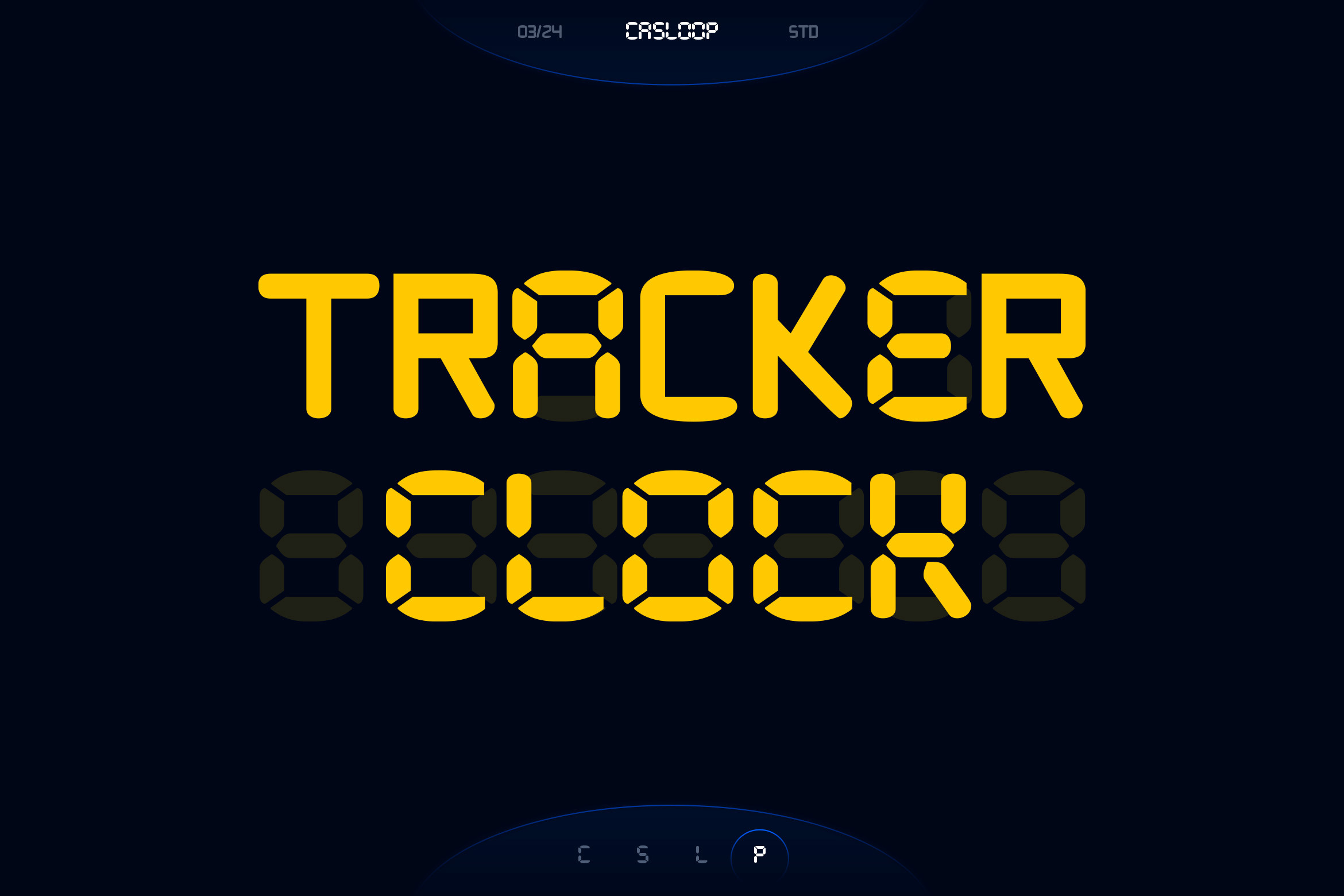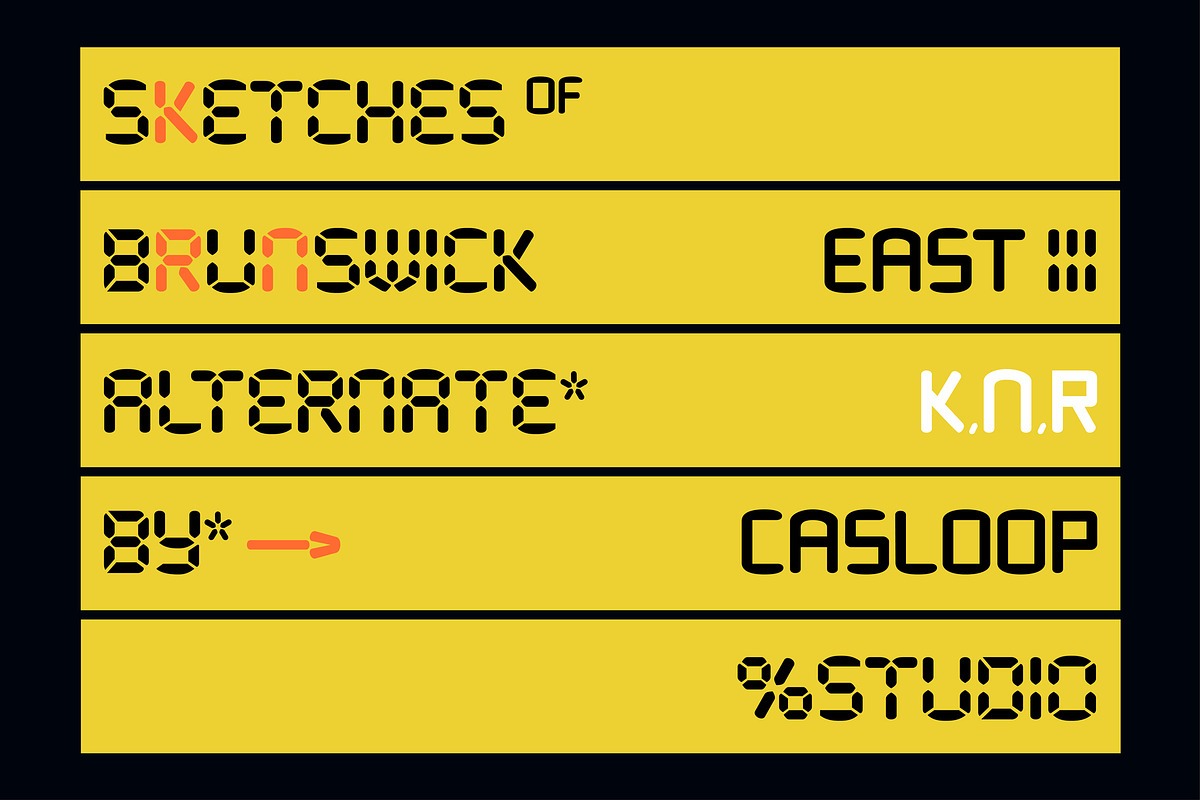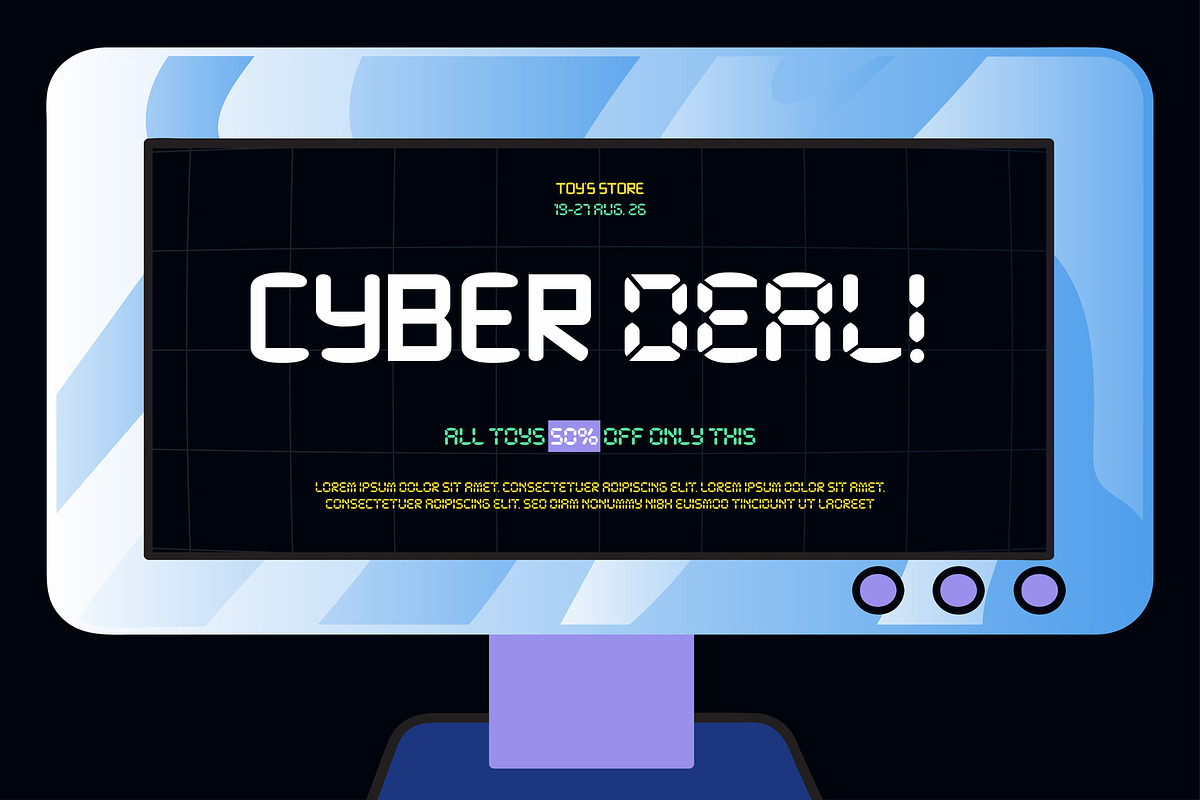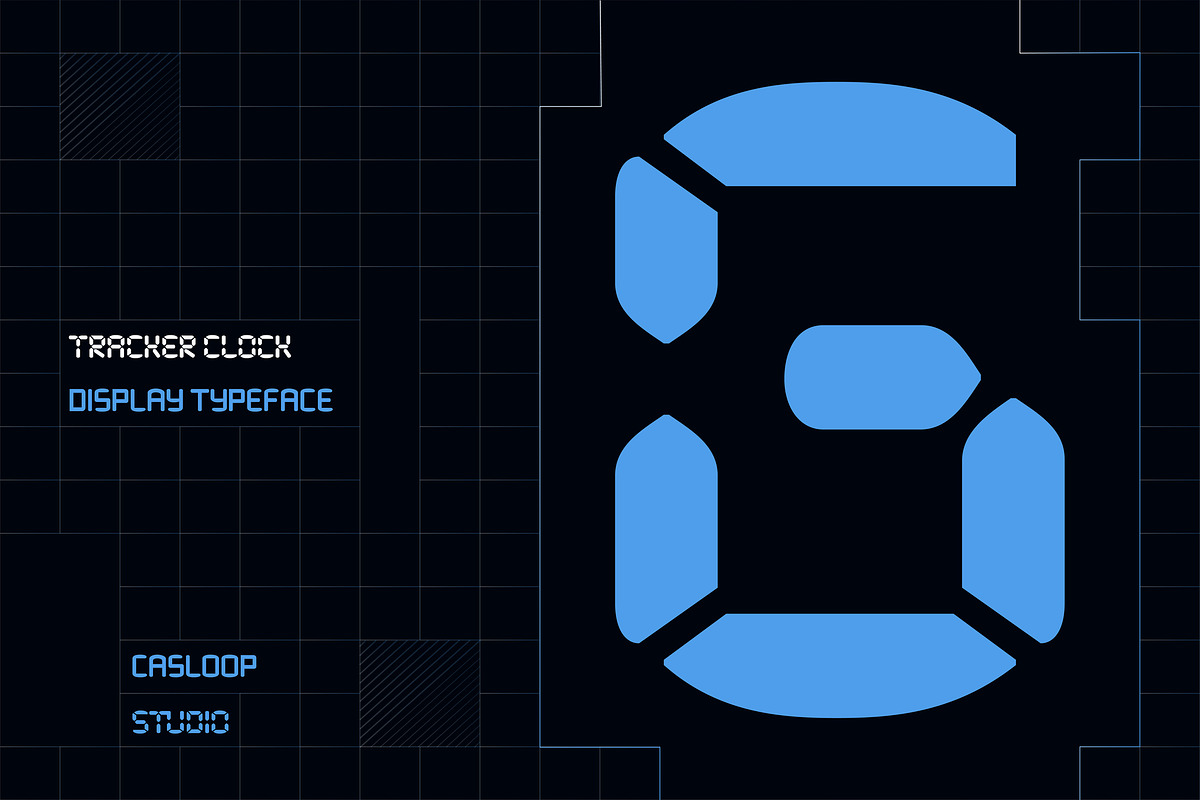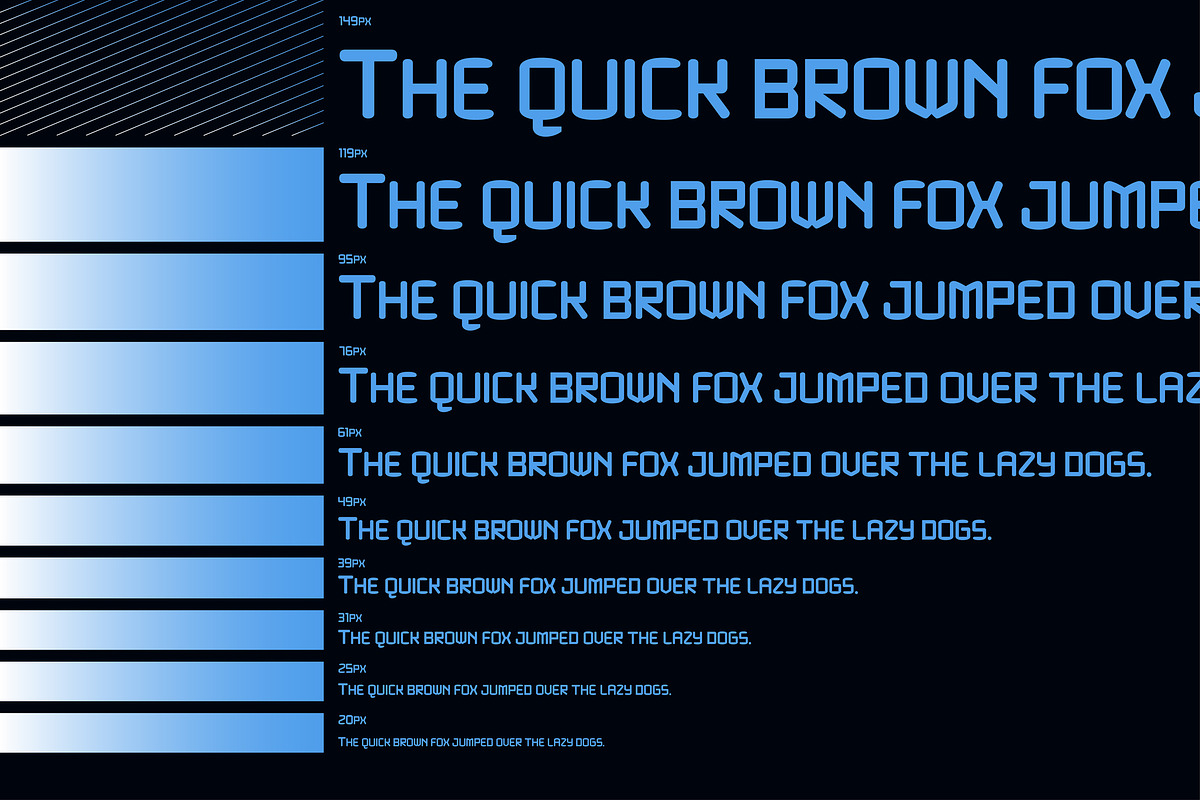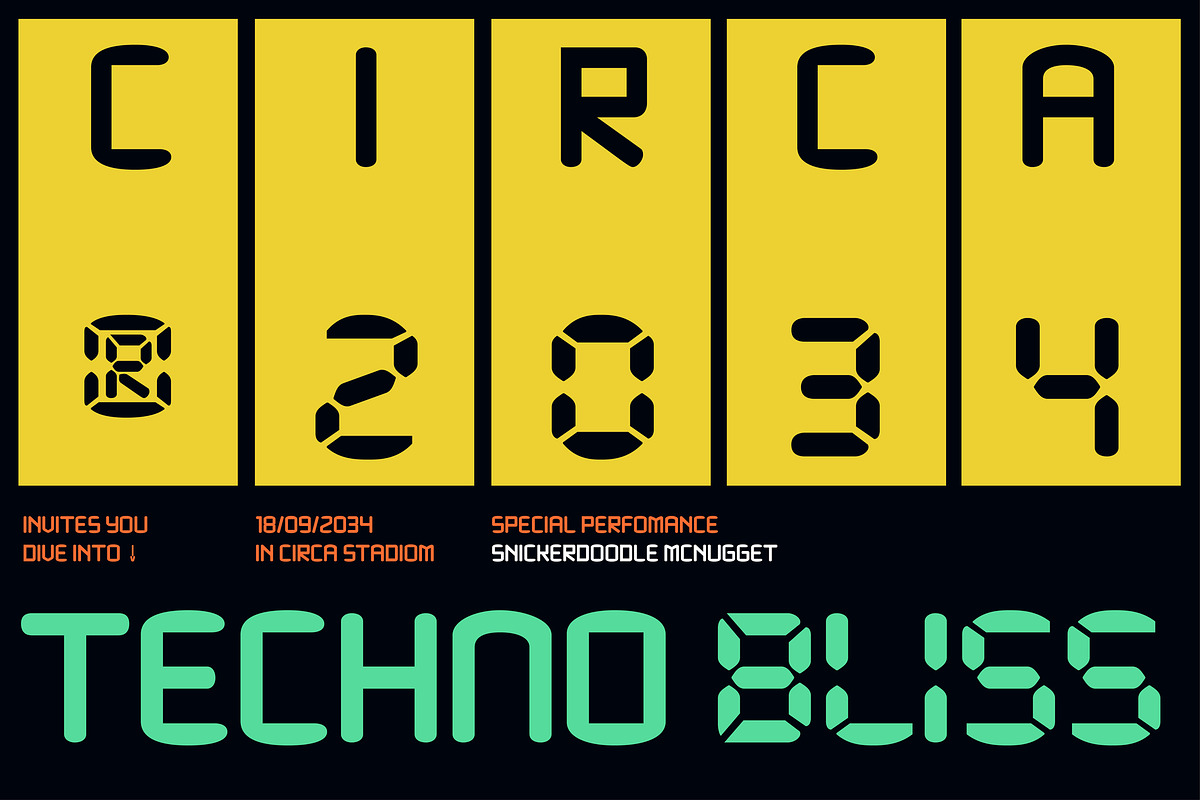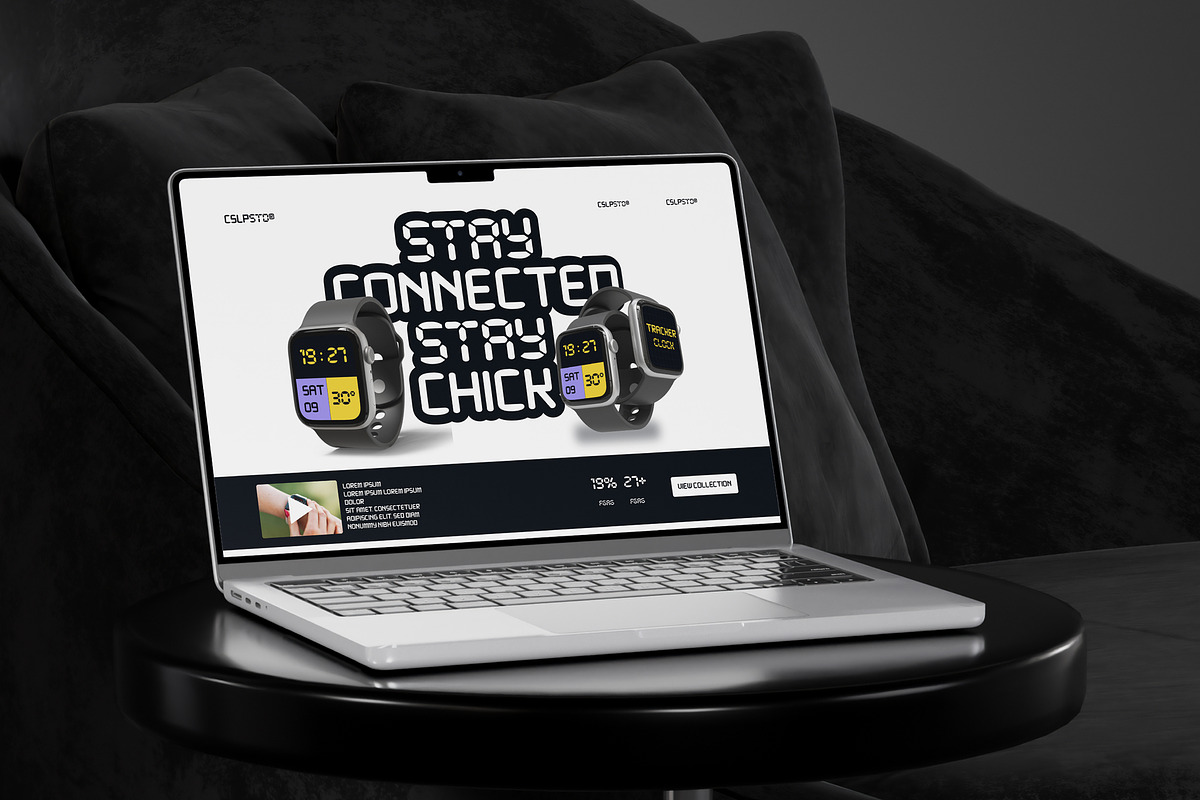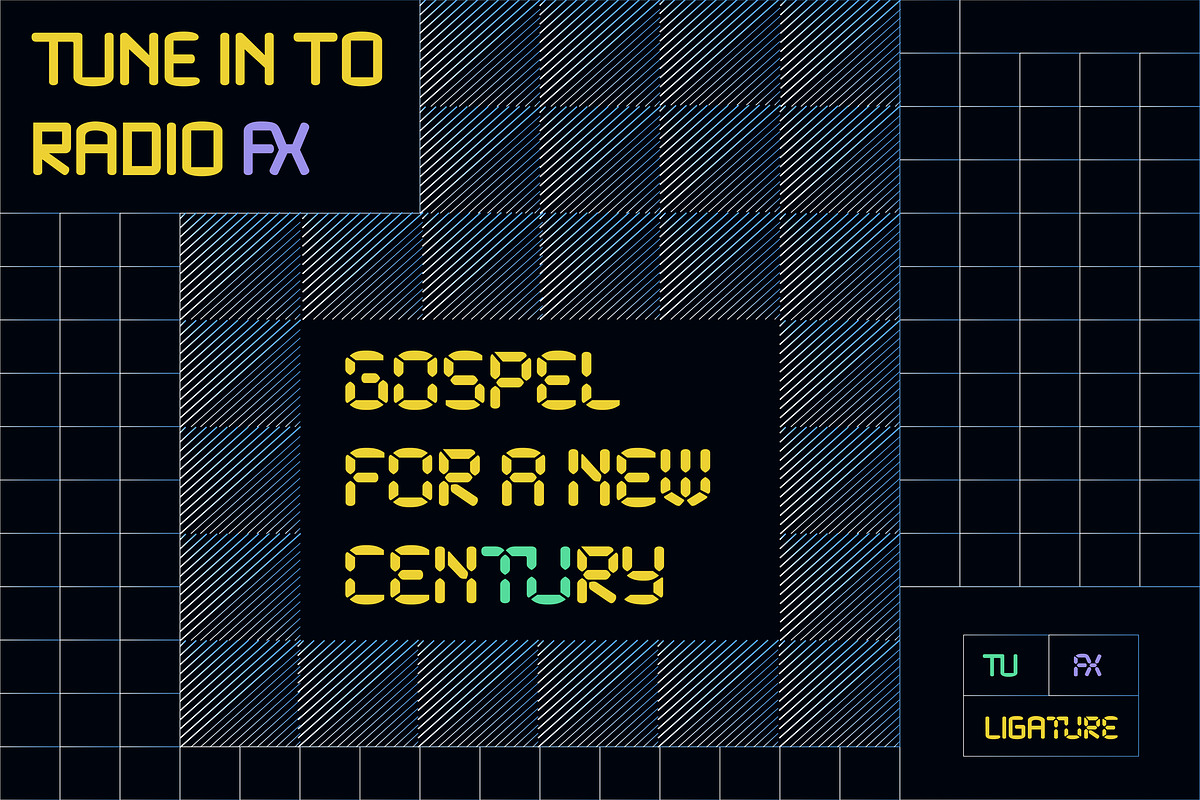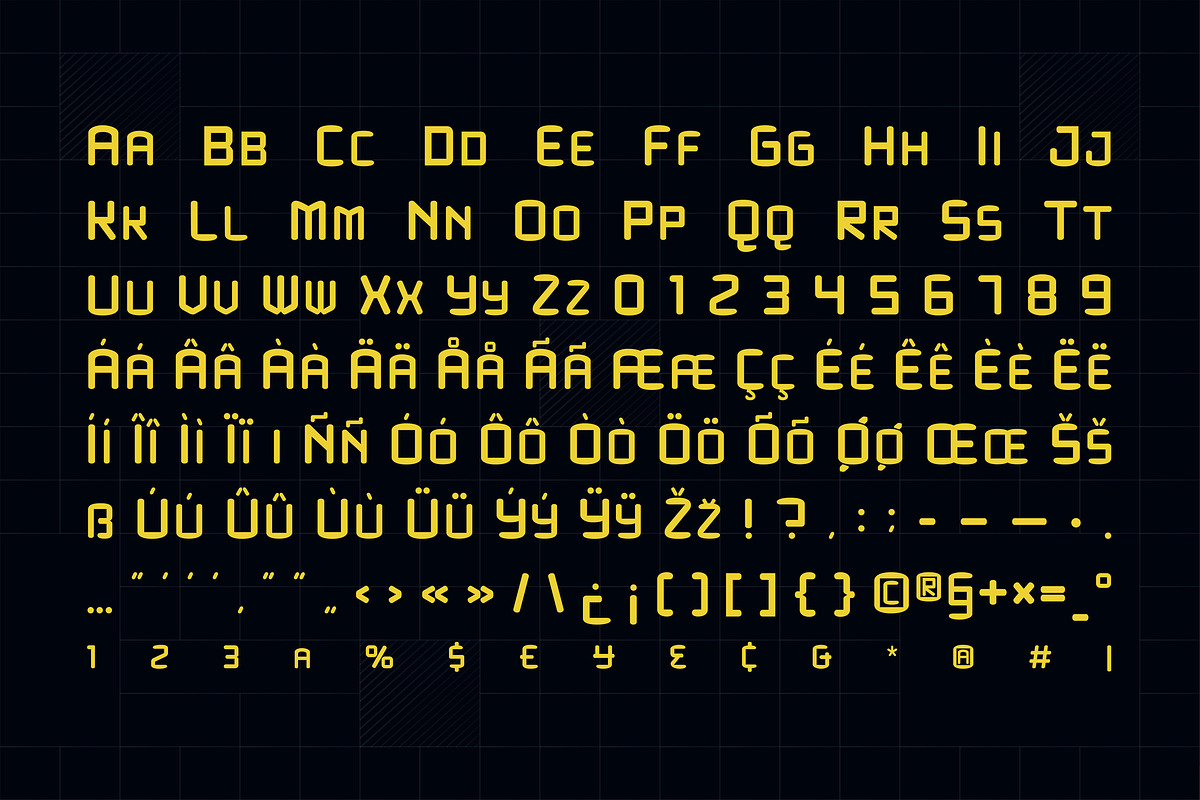
Tracker Clock - Stopwatch 2 Fonts
Introducing Tracker Clock, a cutting-edge font drawing inspiration from the sleek design of the ETCH Clock, stopwatch precision, and the reliable nature of quartz timekeeping. This digital typeface is not just a font; it's a functional work of art for the modern era.
Tracker Clock stands out with its unique blend of Retro Flat aesthetics, whimsy reminiscent of the Memphis style, and the evocative nostalgia of Modern Nostalgia. Its sleek design captures the essence of the 80s and Y2K, making it the perfect choice for anyone seeking a font that seamlessly blends the past with the future.
In the realm of digital design, Tracker Clock reigns supreme. Whether you're crafting a website, designing a logo, creating impactful branding, or developing eye-catching posters, this font brings a sci-fi, cyberpunk vibe that instantly elevates your project. The monospace style, combined with 8-bit and bitmap influences, ensures a distinctive and memorable visual impact.
Tracker Clock doesn't just tell time; it narrates stories of the future. With functionality rooted in New Year countdowns, temperature degrees, pixel precision, and stopwatch precision, this font becomes a versatile tool for conveying not just time but also the essence of the moment. Its halftone and techno undertones add a dynamic edge that suits the contemporary design landscape.